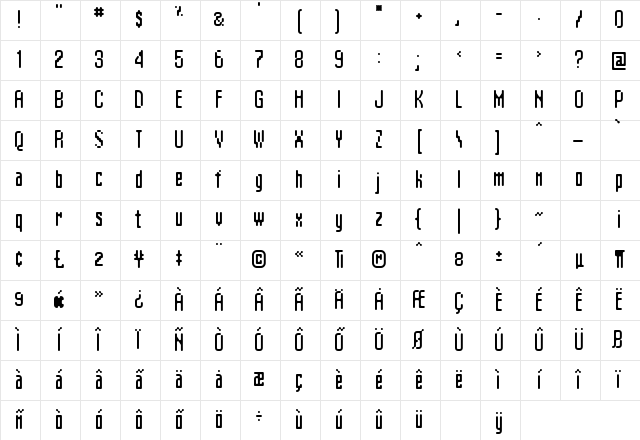
Matica Regular Free Font
Matica Regular
Design Context for Matica
Matica is a composed and adaptable typeface that performs quietly and consistently across a wide range of design contexts.